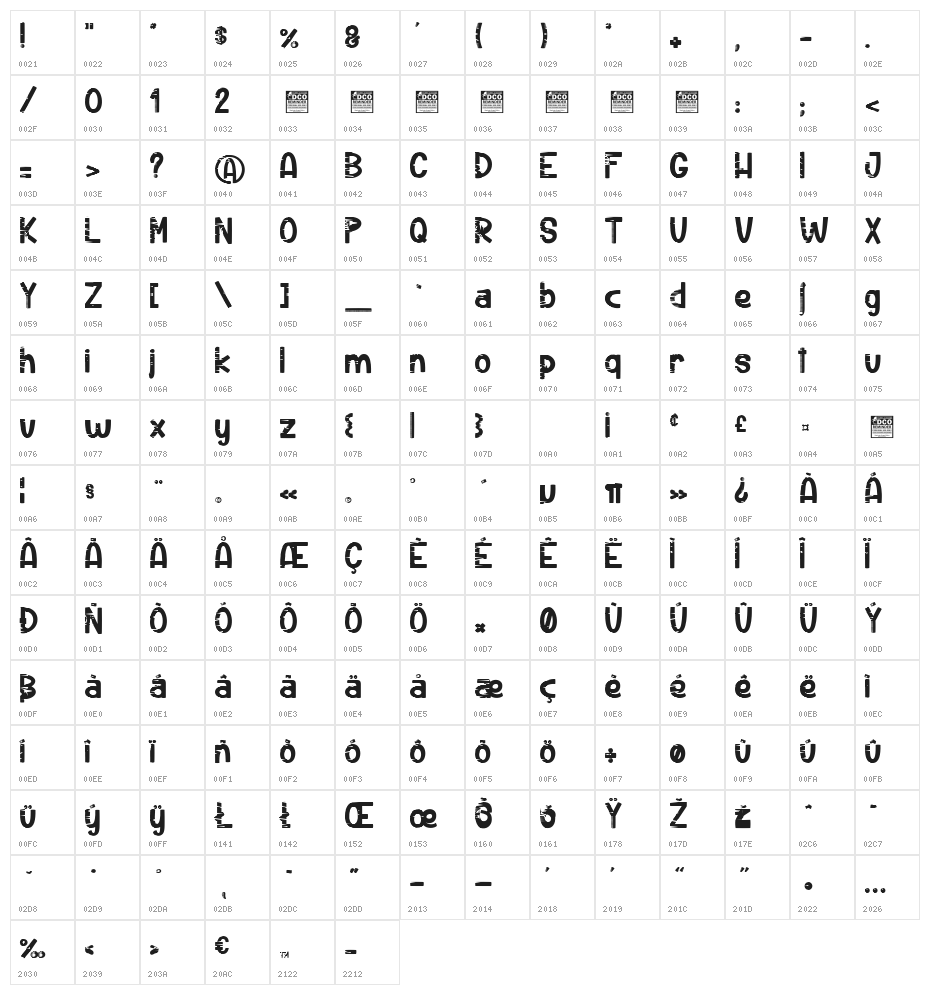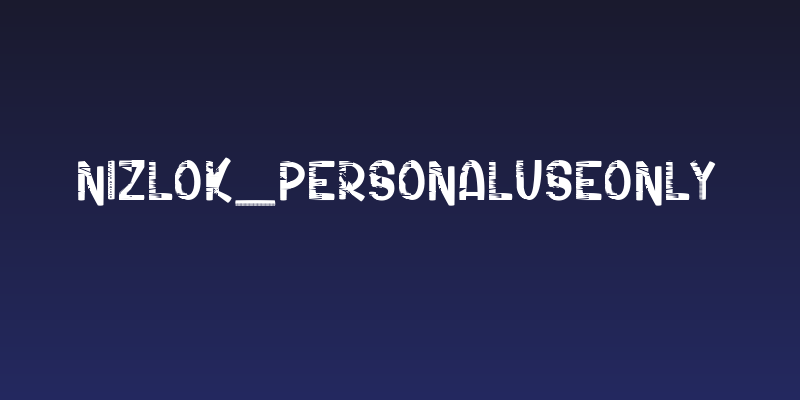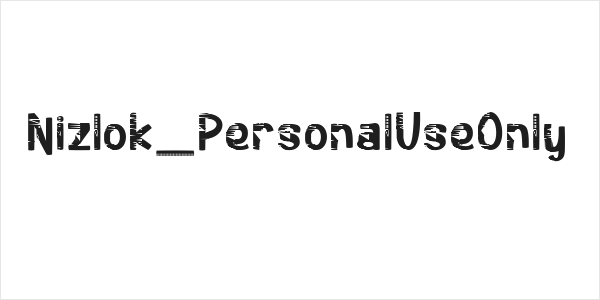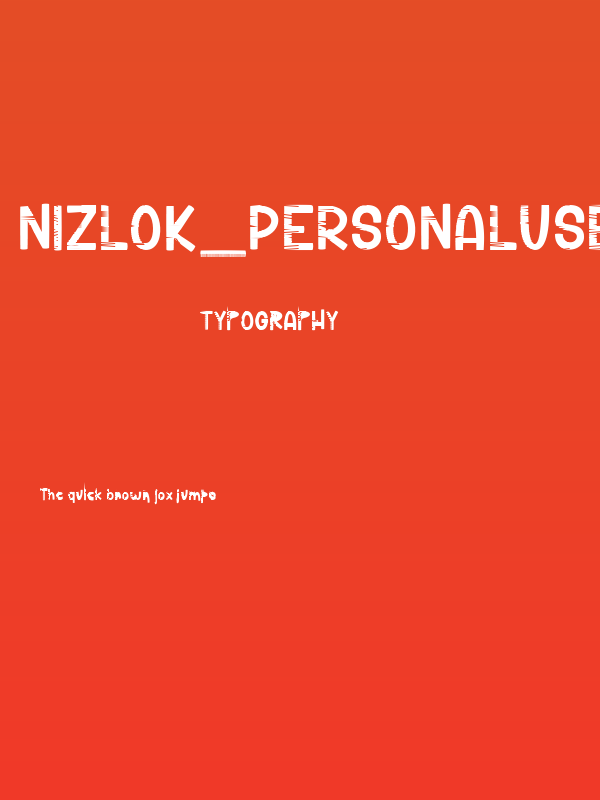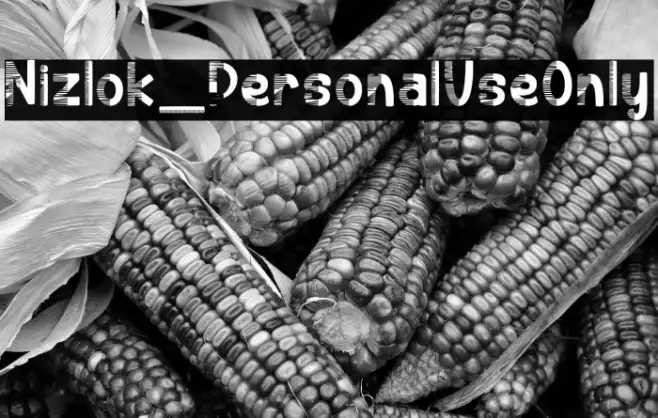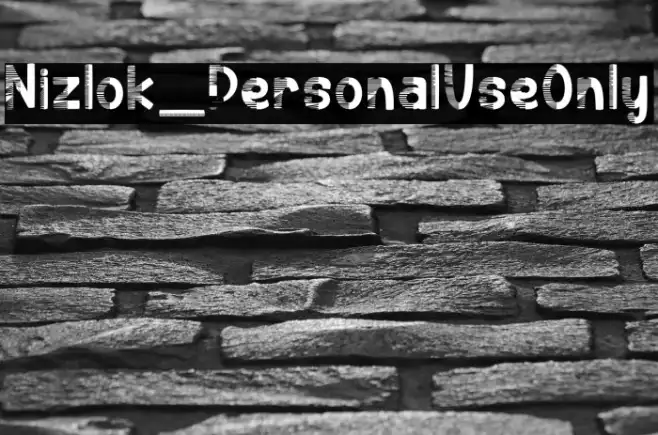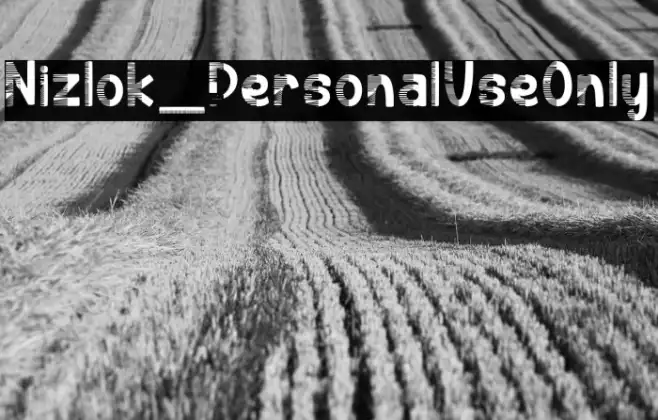
Nizlok_PersonalUseOnly Font
Nizlok_PersonalUseOnly Description
This font features a unique, decorative style with a striped pattern running through each character, giving it a dynamic and textured appearance. The uppercase and lowercase letters maintain a consistent design, with bold strokes and a playful, modern aesthetic. The numbers and special characters follow the same pattern, ensuring a cohesive look across all elements. The font's distinct style makes it suitable for eye-catching designs, where a bold statement is needed. Its artistic flair is perfect for projects that require a creative and unconventional touch.
| Proposed Projects | Ideal for posters, album covers, branding, and creative digital artwork. |